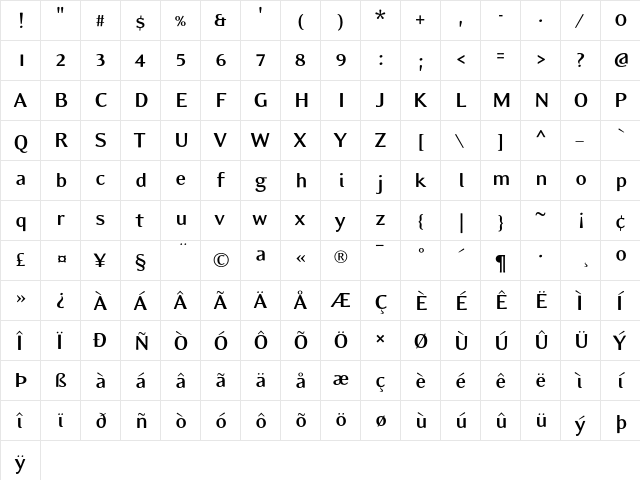
EideticModern Bold Font Preview
EideticModern Bold
EideticModern Bold Font Details
Design Context for EideticModern Typeface
EideticModern takes a measured approach to typography — its balanced proportions and neutral character make it a reliable workhorse for both digital and print work. The heavy weight commands attention and anchors typographic hierarchies.
Pro Tip: Use EideticModern in both headline and body roles to test its range before committing to a single application.